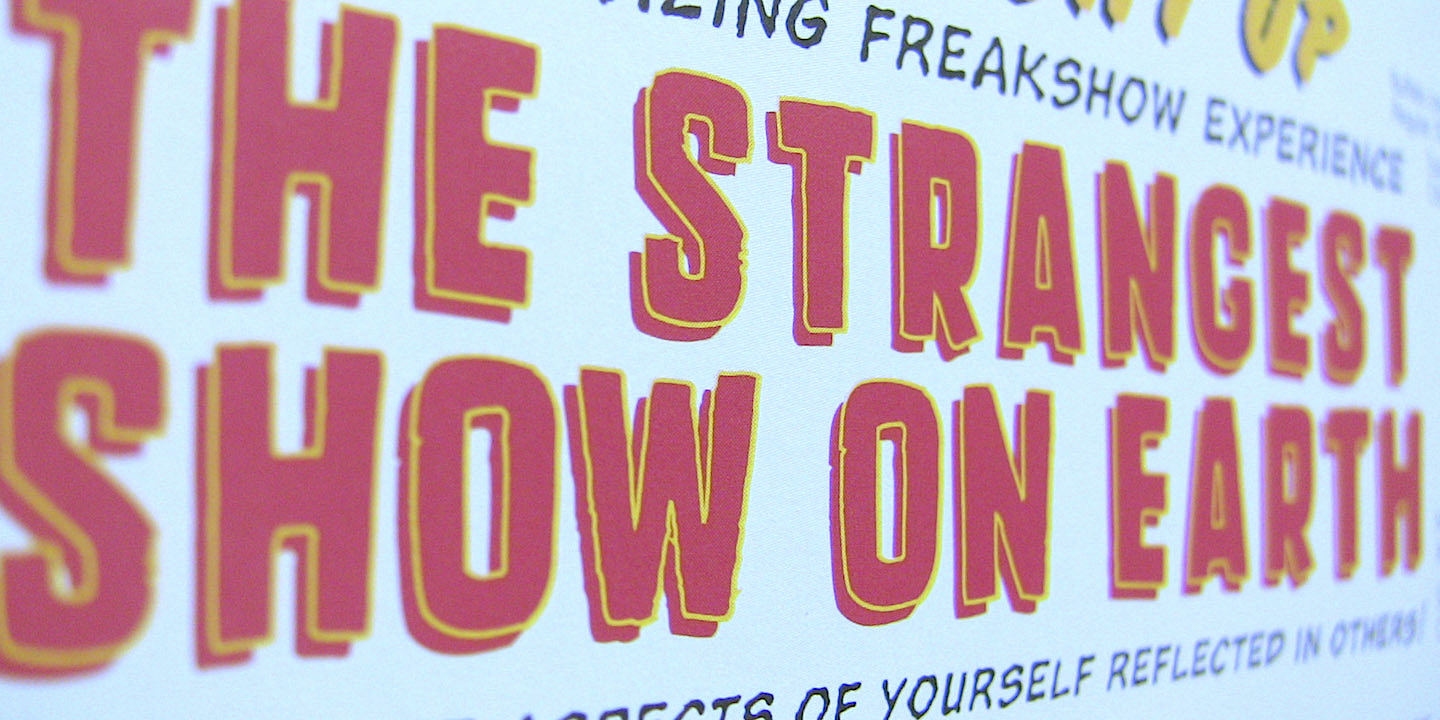
Mixed Breed Free Download
Add a unique, bold character to your designs with Mixed Breed Font Free Download. This striking display typeface features a combination of clean, modern lines and rugged, distressed elements—perfect for edgy branding, streetwear logos, posters, album covers, and other creative projects that need a strong visual statement. Mixed Breed Font Free Download brings together the best of both worlds with its fresh, urban appeal.
The strong and rough texture of Mixed Breed Font makes it ideal for designs that need to stand out with a dynamic and rebellious attitude. Whether you're working on music graphics, marketing materials, or anything in between, this font adds raw energy and style.